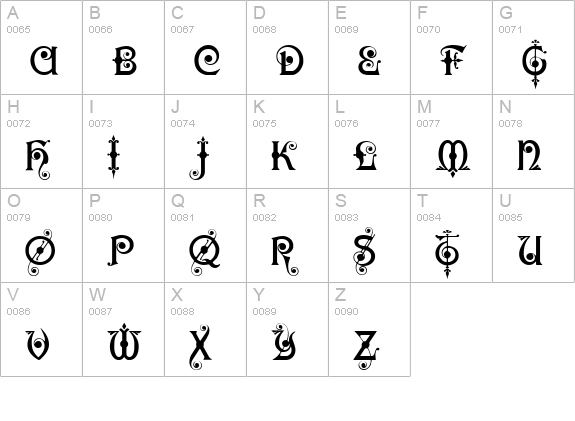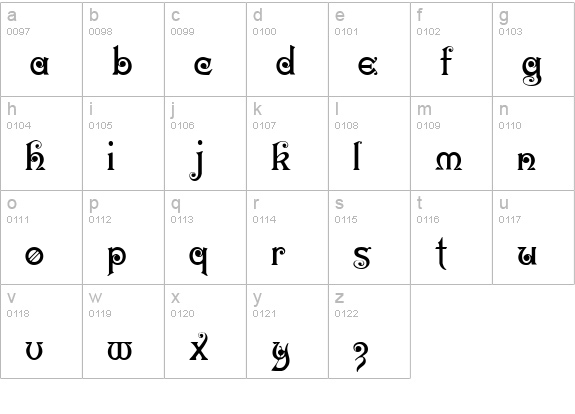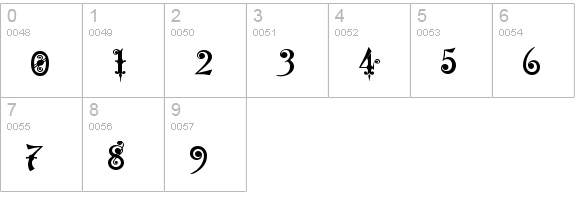
Karnac Two Font Details
Karnac Two is a stunning font that effortlessly combines elegance with a touch of modernity. Its sleek and sophisticated design makes it the perfect choice for any project that requires a refined typography. With its clean lines and graceful curves, Karnac Two exudes a sense of professionalism and style. But what sets Karnac Two apart from other fonts is that it is not only visually appealing, but also completely free. Yes, you read that right - this fantastic font is freely available to download at FontsMarket.com. Now you can enhance your designs with a top-quality font without spending a dime. Whether you're working on a website, a logo, a poster, or any other creative endeavor, Karnac Two will undoubtedly elevate the overall aesthetic. Its versatility allows it to adapt seamlessly to any context, adding a touch of class and sophistication. The attention to detail in Karnac Two is evident in every letterform. Each character is meticulously crafted to ensure a harmonious flow and legibility, even at smaller sizes. The result is a font that not only looks impressive but also performs flawlessly. So why settle for ordinary when you can have extraordinary? Download Karnac Two for free at FontsMarket.com and unlock a world of endless possibilities for your designs. Whether you're a professional graphic designer or an enthusiastic beginner, this font is sure to become your go-to choice for all your typographic needs. Don't miss out on this exceptional opportunity to enhance your creativity with Karnac Two - the font that combines beauty and accessibility in one stunning package.